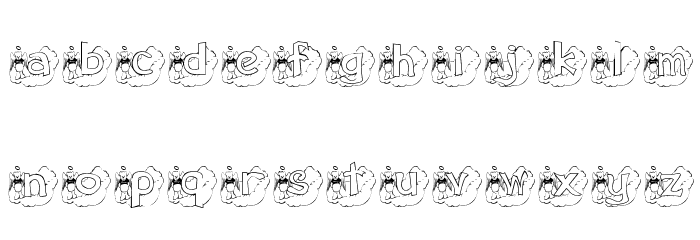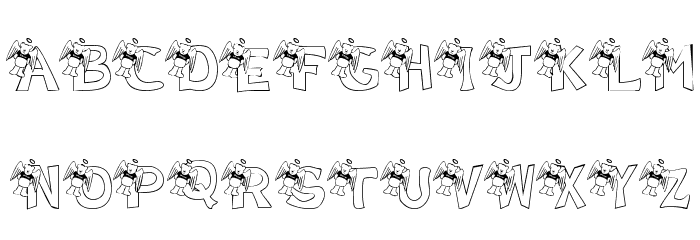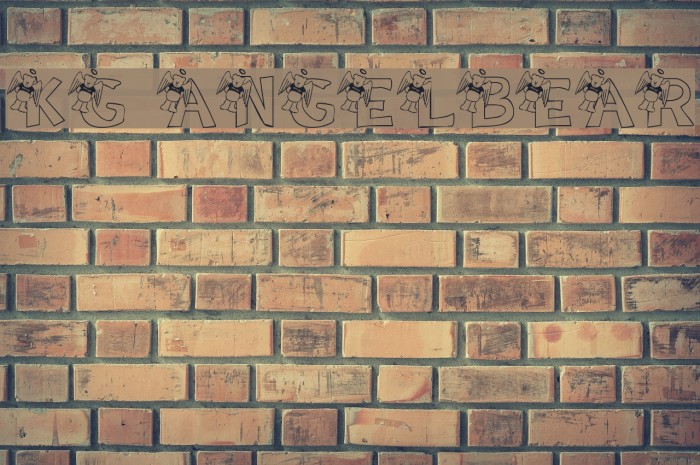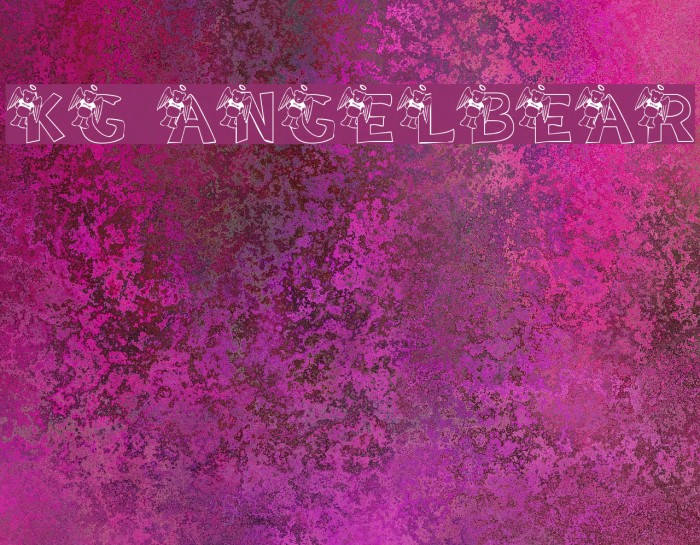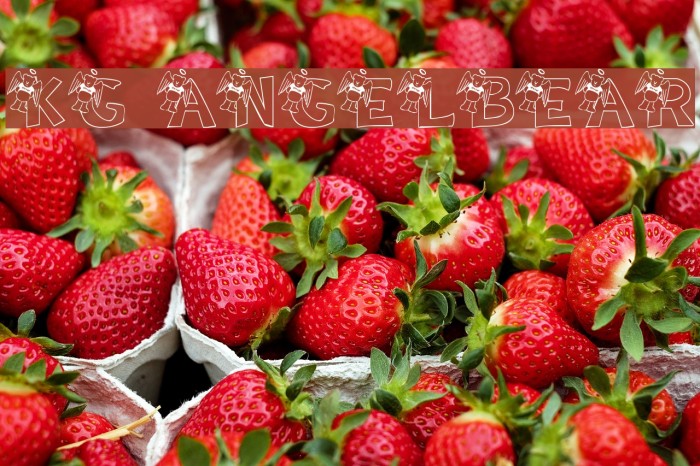
KG ANGELBEAR Font
This whimsical and playful font features characters integrated with charming angel bear illustrations. Each letter is uniquely designed with the bear character either standing beside or interacting with the letterform, adding a delightful and imaginative touch. The uppercase letters are bold and prominent, while the lowercase letters are nestled within fluffy cloud shapes, enhancing the playful theme. The numbers and special characters maintain the same creative style, ensuring consistency throughout the font. This font is ideal for projects that aim to capture a sense of fun and creativity, particularly those targeted towards children or themed events.
A playful font with angel bear illustrations integrated into each character.
- Proposed Projects: Children's books, greeting cards, themed party invitations, playful branding.
- Overall Style: Playful, Whimsical
- Use Case: Headlines, Logos, Decorative text